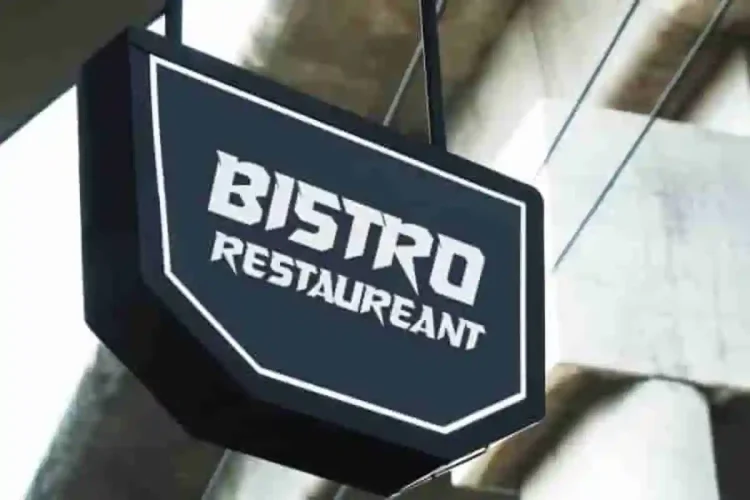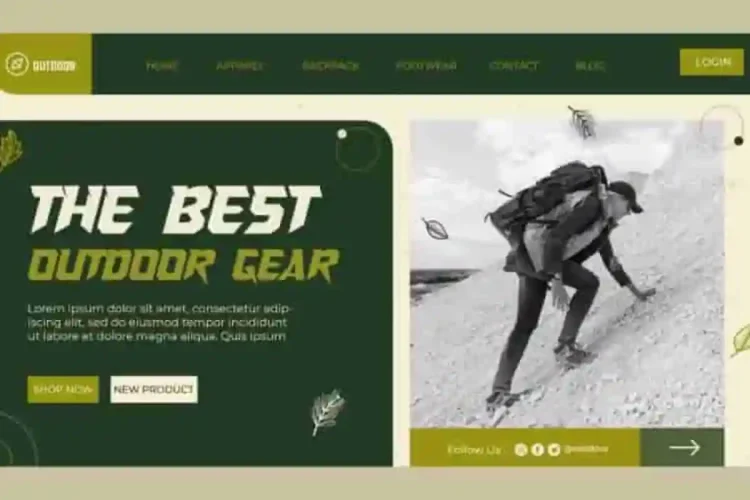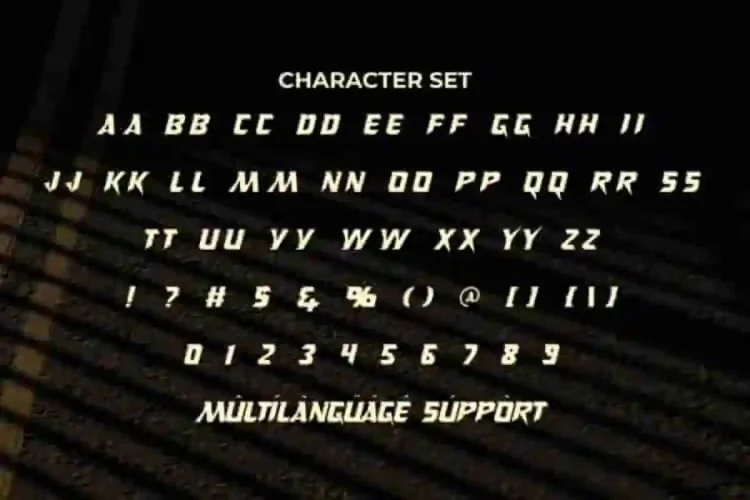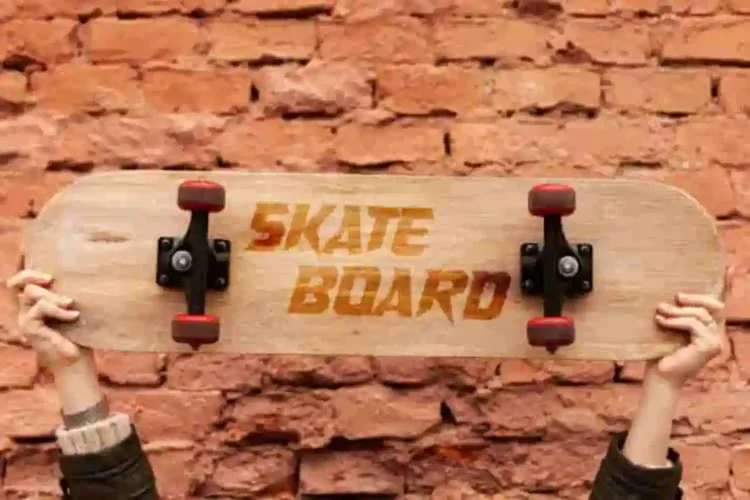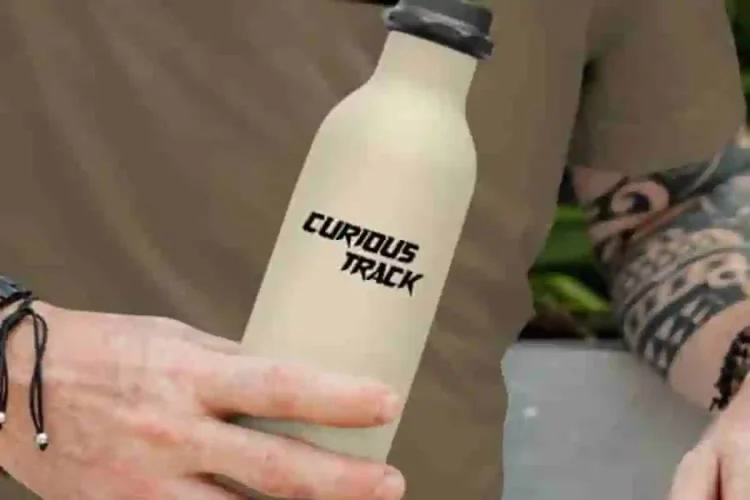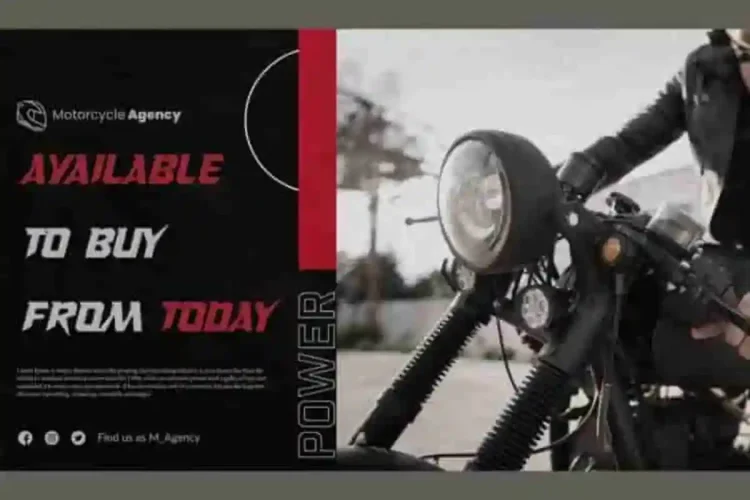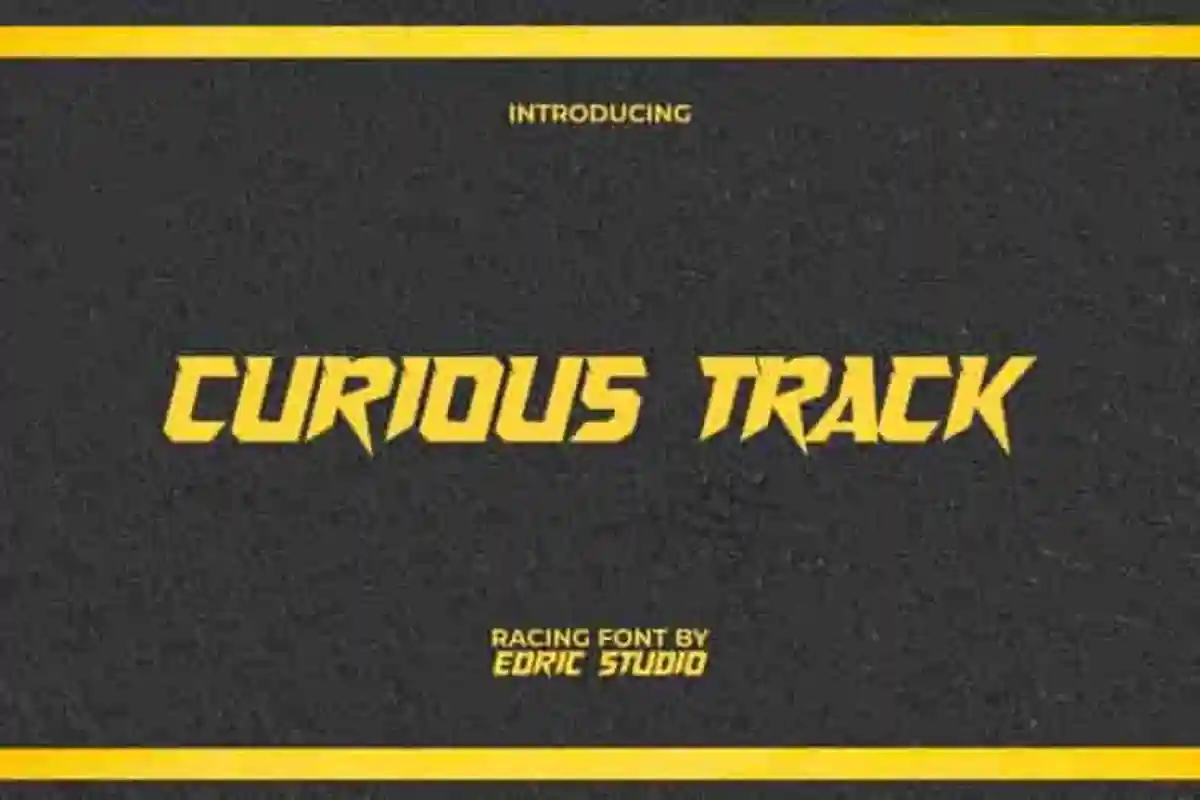
Curious Track Modern Font is a fast and powerful racing font with a modern and sporty style. With its fast-paced slant and strong geometric cuts, this typeface delivers a sense of speed and power that perfectly captures the spirit of competition.
Curious Track Modern Display Font comes with a full set of ALL CAPS for Uppercase and Lowercase letters, Number, Punctuation, and Symbol. Introducing a large and impressive display font design inspired by sports. Perfect for billboards, blogs, brochures, headers, logos, product packaging, posters, t-shirts, signage, and more, this font ensures every word stands out with confidence.
Curious Track Modern Font a playful typeface with unique decoration in each character. Combine different characters for a bespoke, handcrafted feel. It’s tested to work well in the Adobe Apps (Illustrator, Adobe InDesign, Adobe Photoshop) even work on Microsoft Word. Thanks to PUA encoding, every glyph and alternate character is accessible for custom creative control.